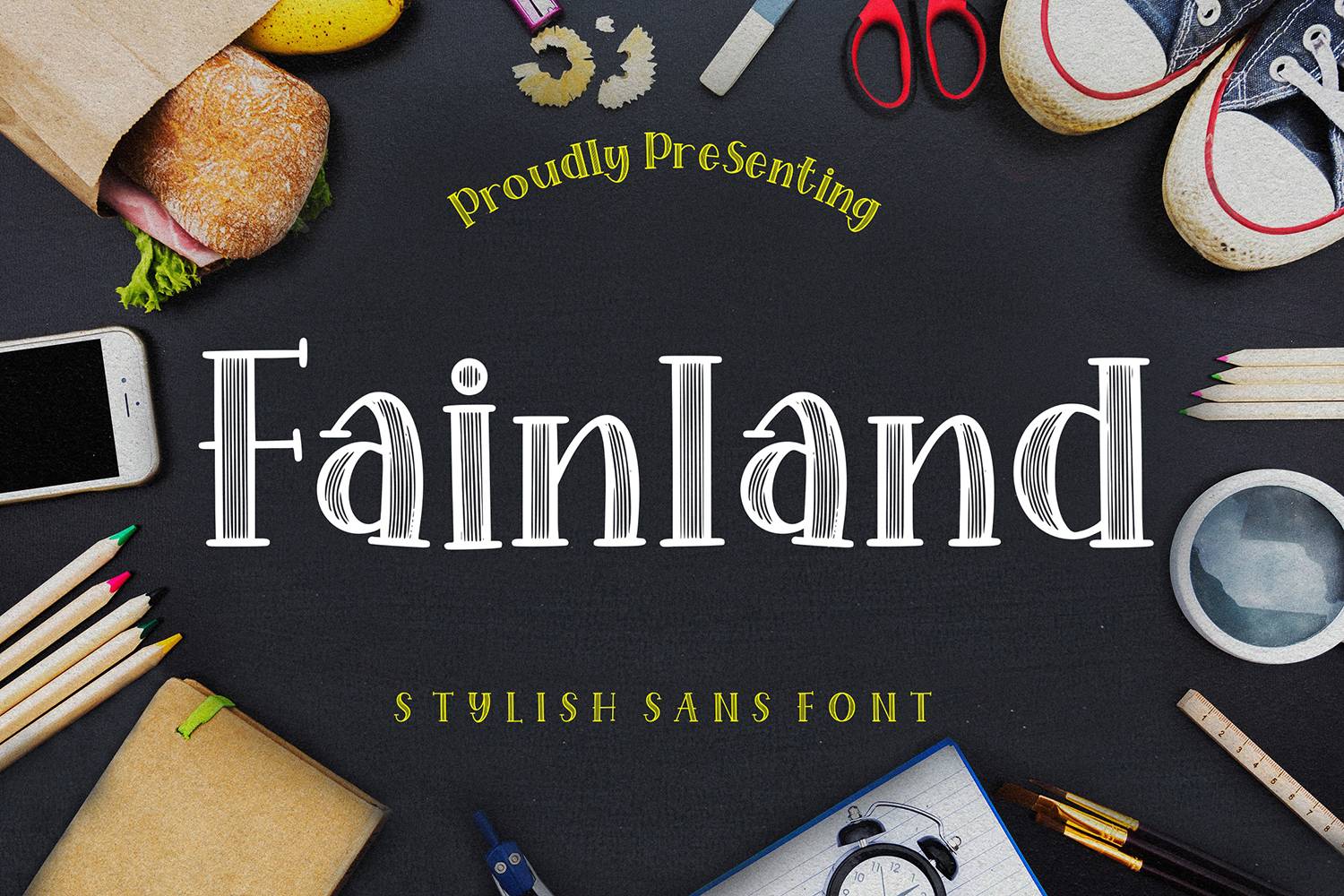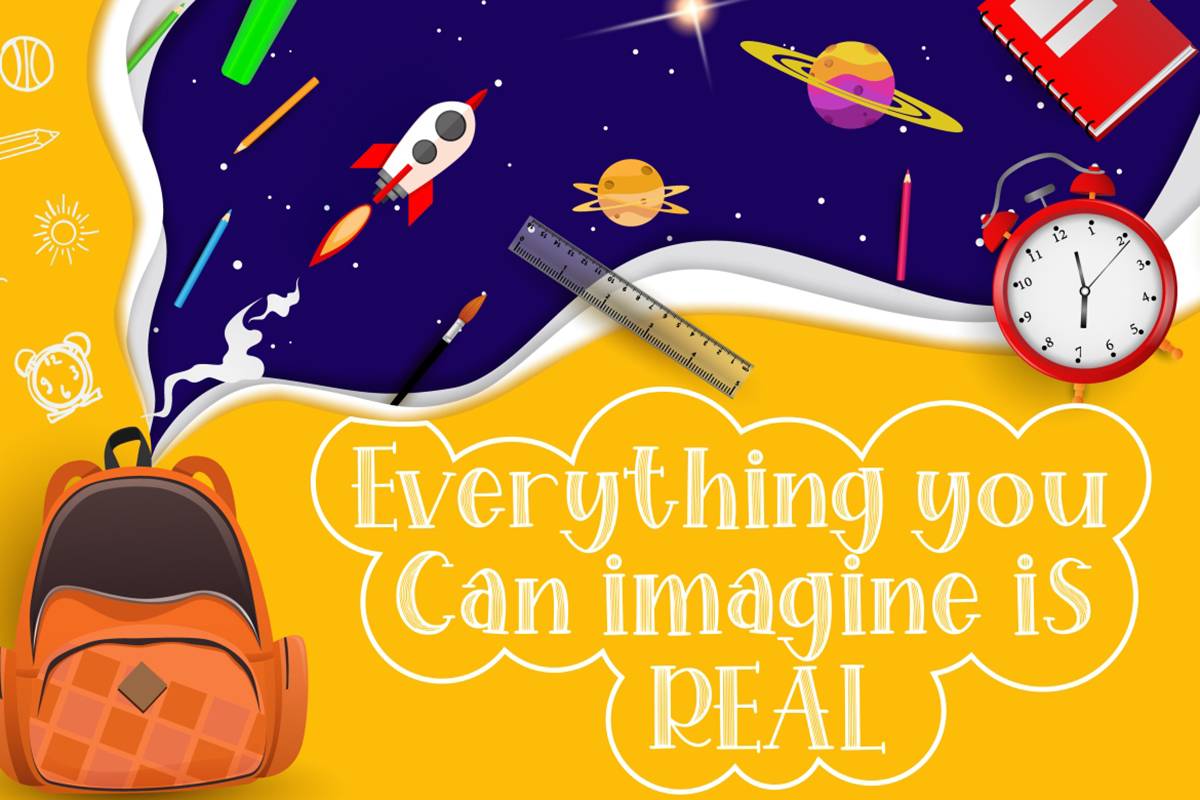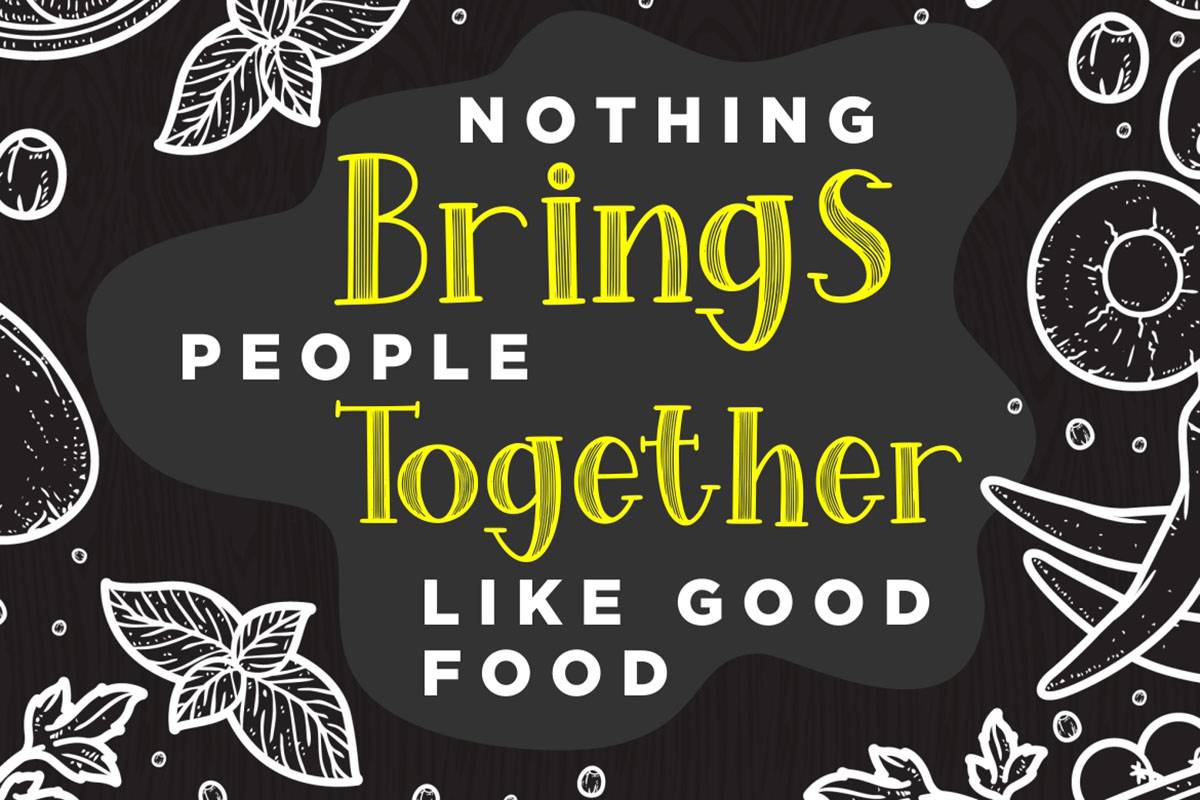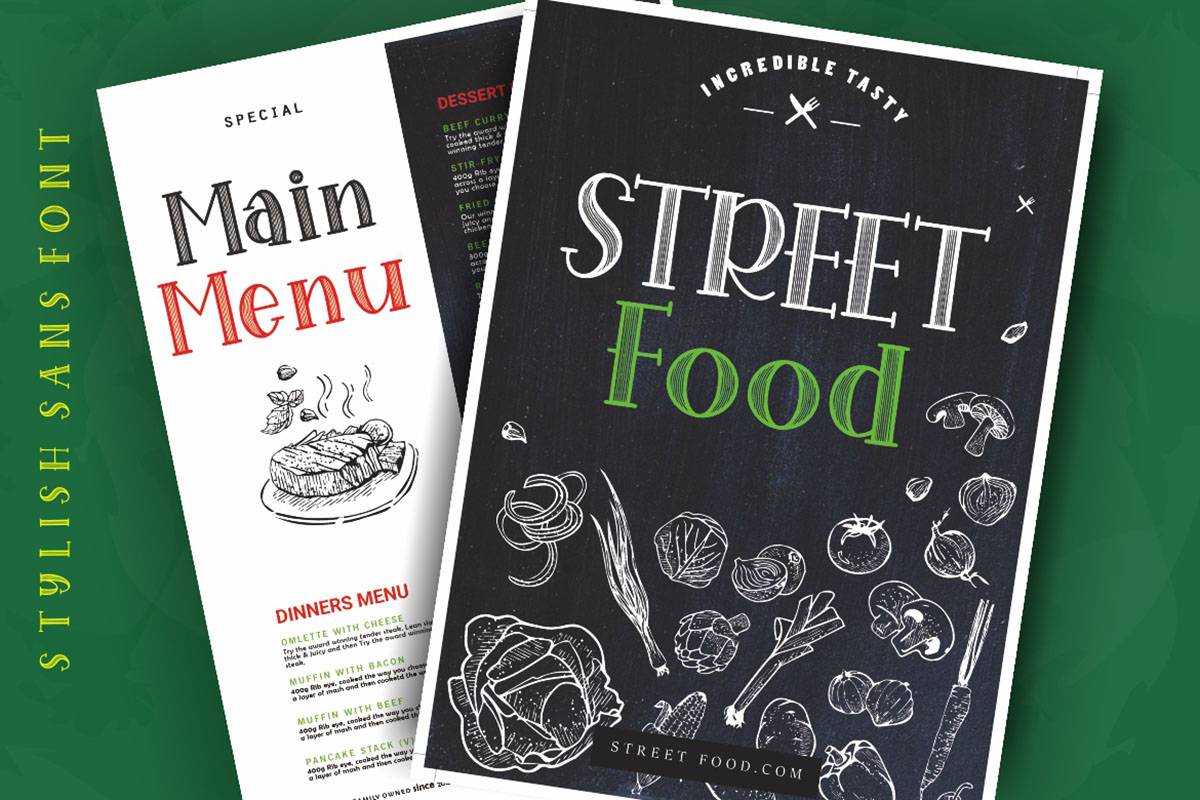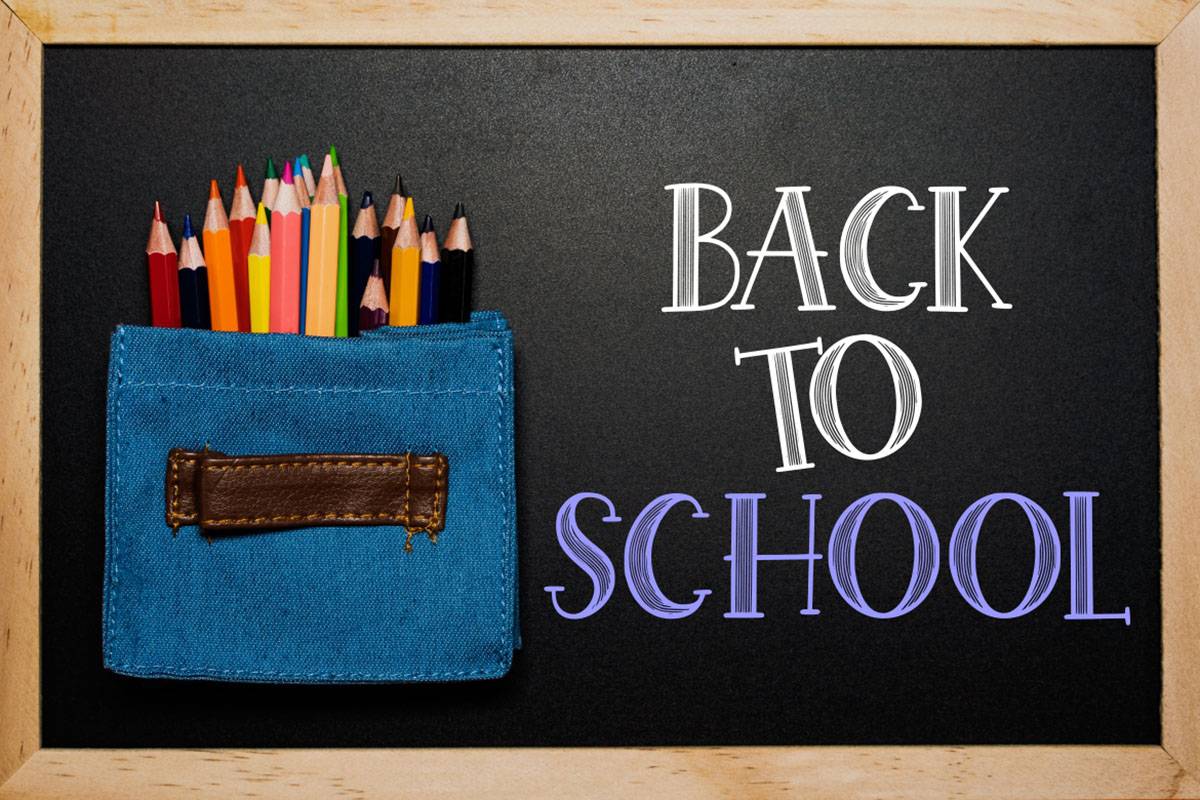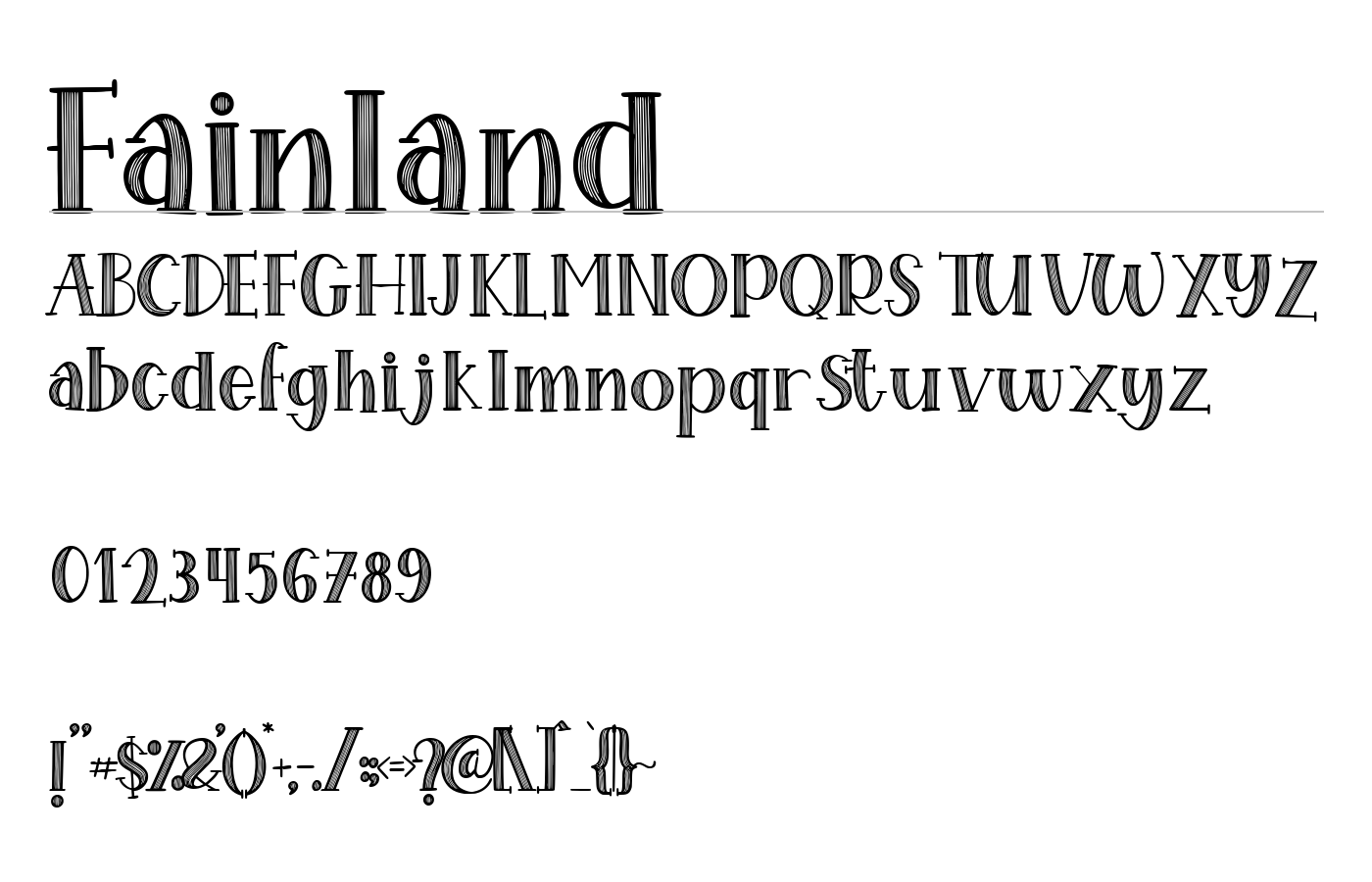
Fainland is a whimsical serif font featuring tall, narrow letterforms with delicate, striped shading that adds texture and a hand-drawn charm. Its playful elegance and unique character shapes make it ideal for creative projects, vintage-inspired branding, and eye-catching headlines that seek a distinctive and artistic touch.
Fainland Font
About Fainland Font